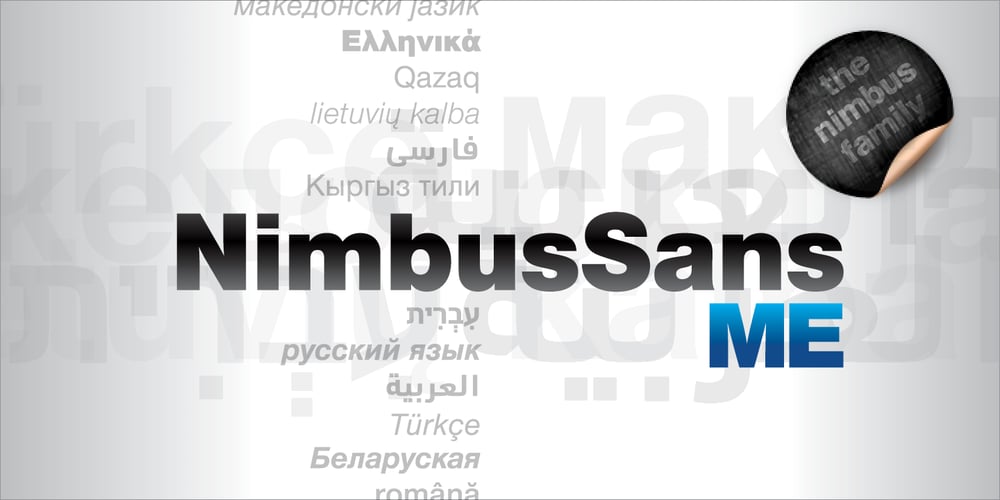
Nimbus Sans Arabic Font Family was designed by published by URW Type Foundry. Nimbus Sans Arabic contains 10 styles and family package options. Nimbus Sans ME is the expansion within the Nimbus Sans family for the Middle East range: Arabic (incl. Farsi) and Hebrew. Volker Schnebel has designed both scripts, which each include five upright and five cursive styles. The design is contemporary and fits the Latin Nimbus Sans. Besides the basis characters, the Arabic also includes the presentation forms: the variations for initial, medial and final letters. The correspondent OTF features are included in the fonts. All three scripts are perfectly combinable. Nimbus Sans is one of the best supported and most favored URW fonts ever. It is available as a Global Font in 4 weights and contains up to 65.000 characters per font.